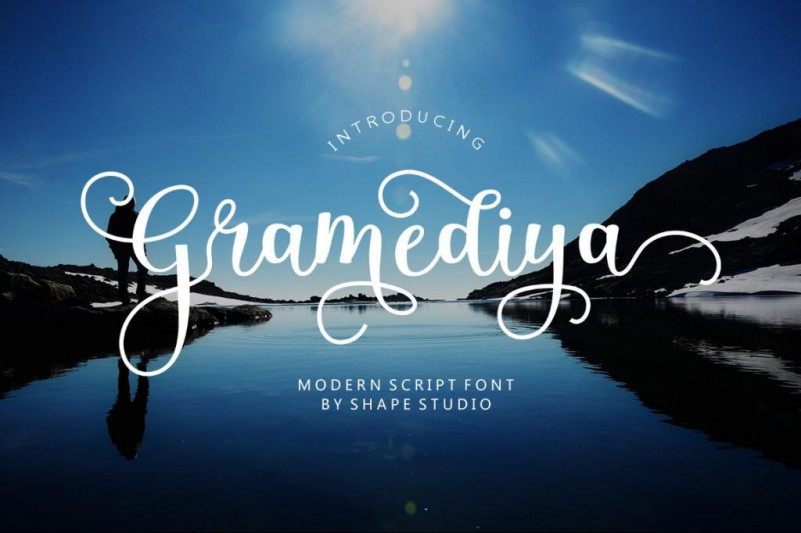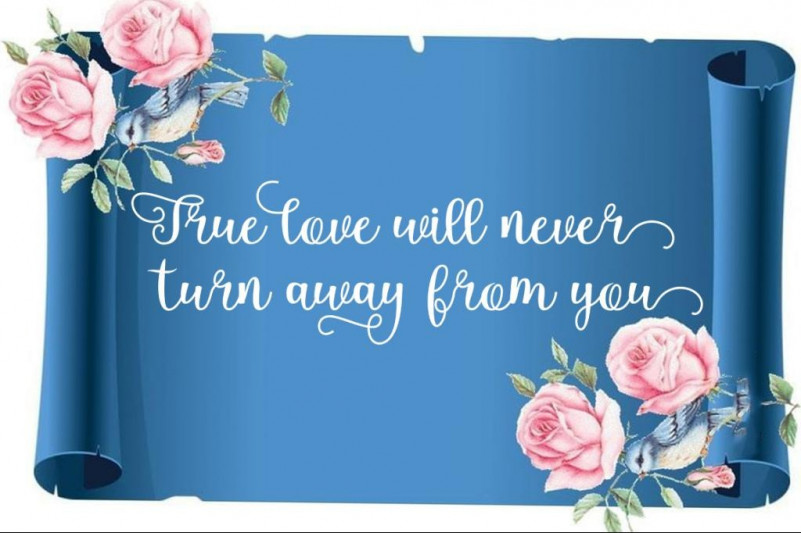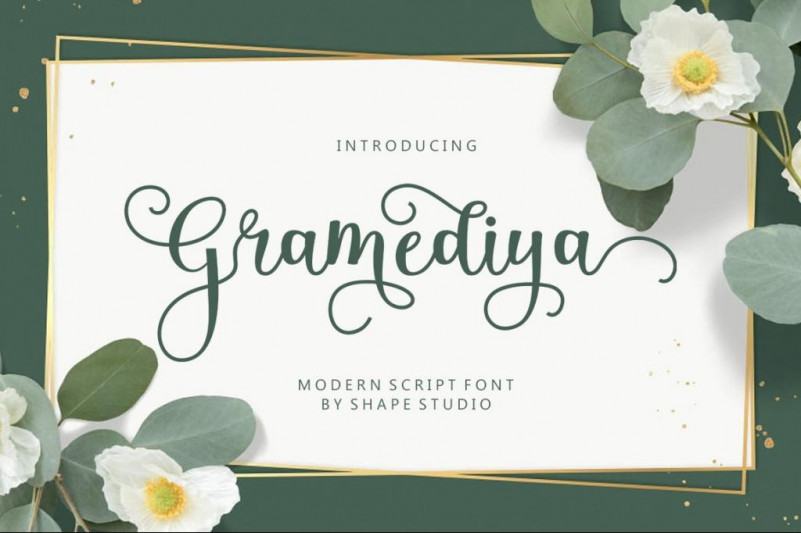
Gramediya Font
Gramediya Calligraphy Font, It can easily be matched to an incredibly large set of projects, so add it to your creative ideas and notice how it makes them stand out!